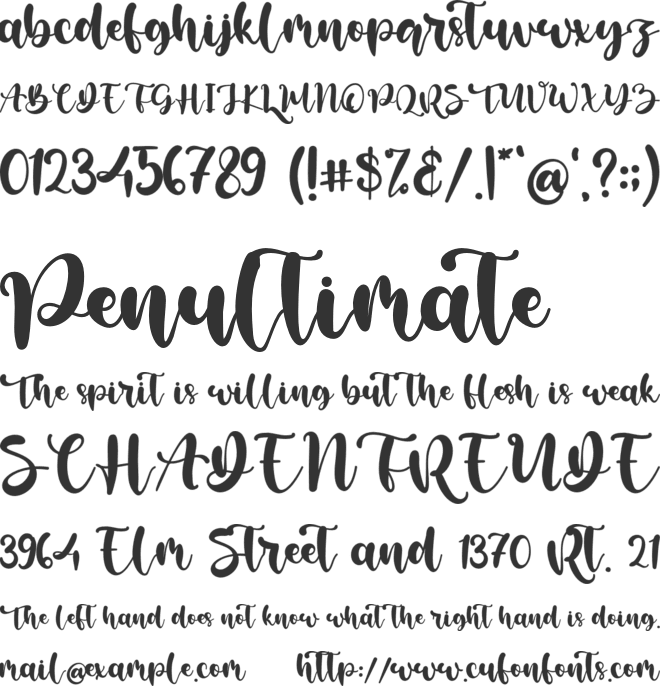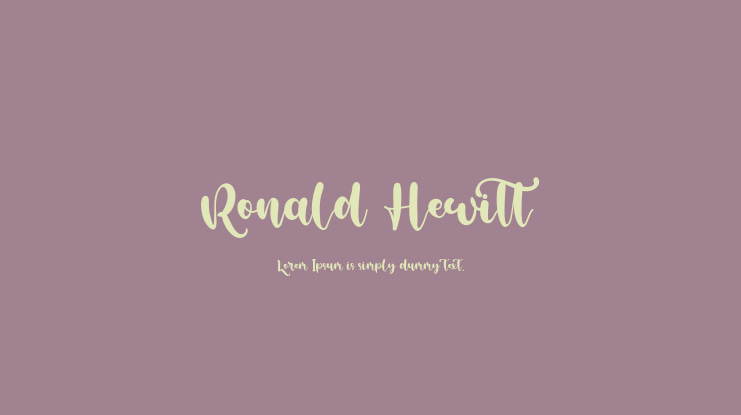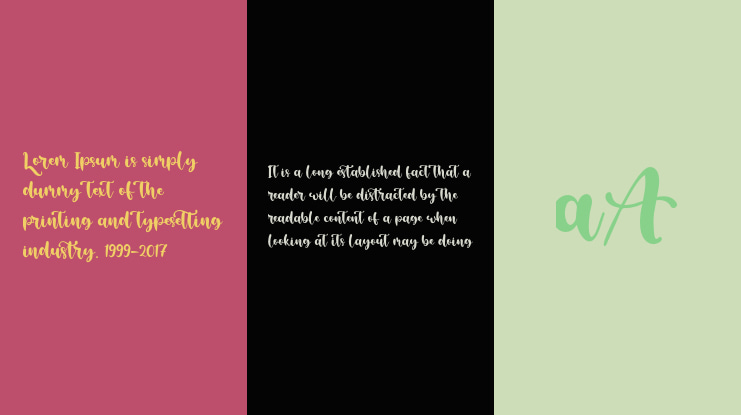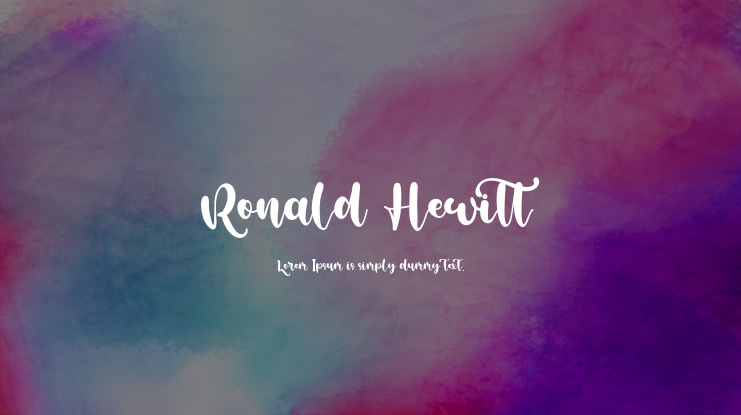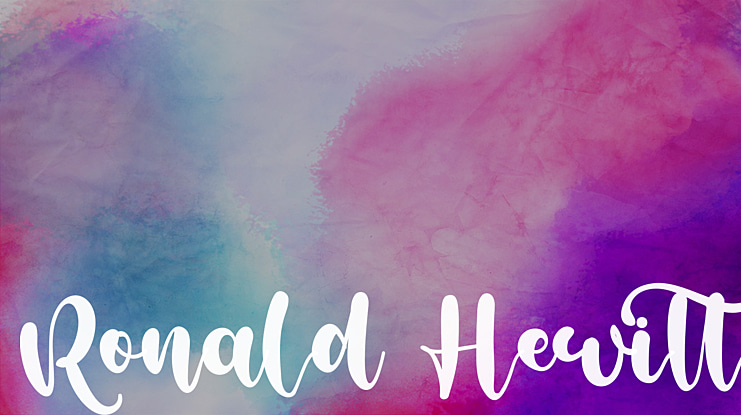
Ronald Hewitt Font
Ronald Hewitt Signature Type Font, A collection of letters and numbers suitable your projects also great for Logotype, Branding Design, Logo Design, Digital Lettering Arts, T-Shirt/Apparel, Poster, Magazine, Signs, Advertising Design, and any design needsClick our website :https://staircaselab.com/product/ronald-hewitt/